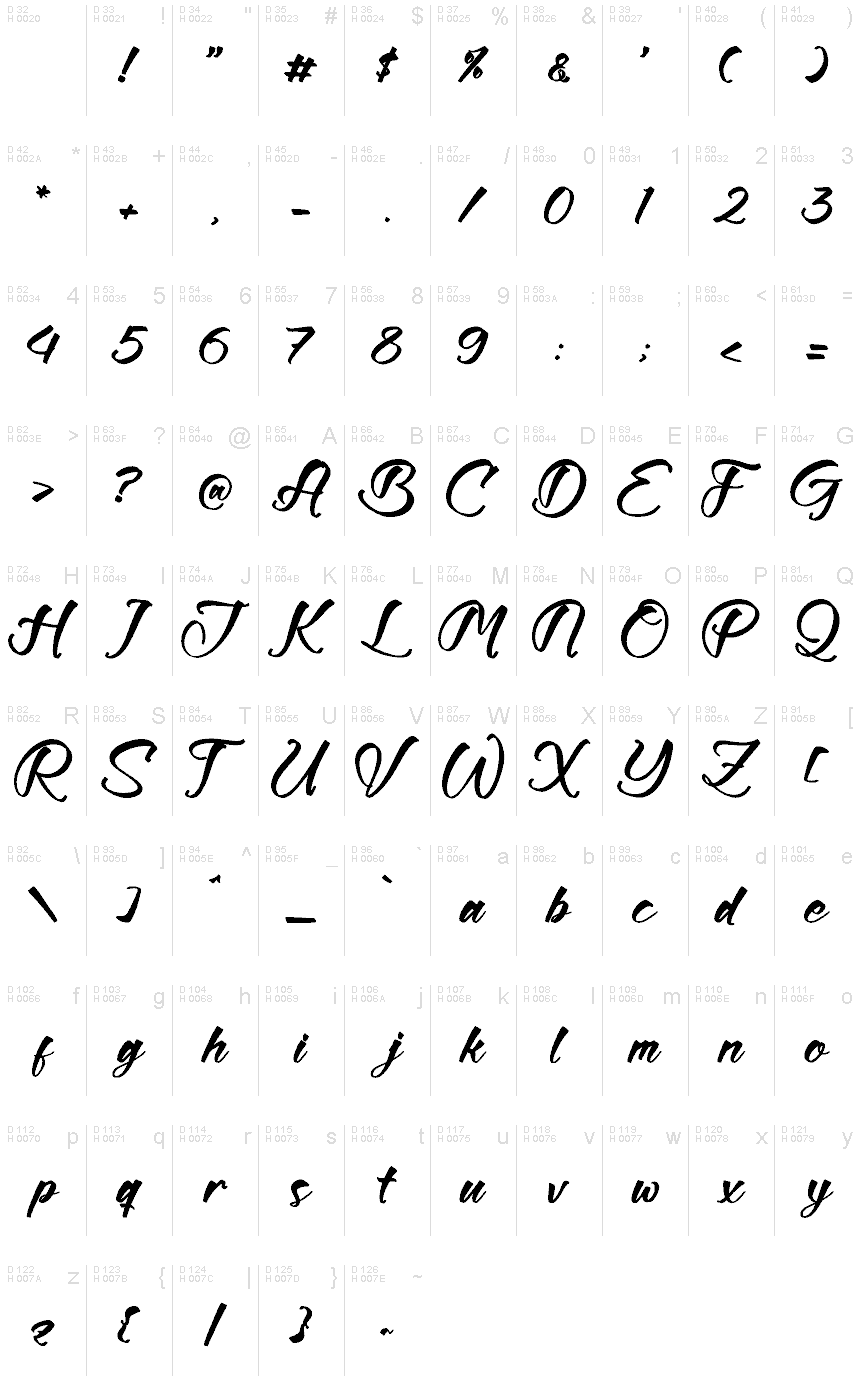
Freytha Brighter
Freytha Brighter font is a magnificent brush font designed by Glorytype. Entirely liquid, elegant, expressive, and ornamental in its own manner, the typeface is perfectly classic yet remains incredibly sophisticated. The letters are rather artistic as well as absolutely stylish for all types of designs.
Pieces directly related to art creation could be built or complemented using this free handwritten font. Titles for books, magazines, newspapers are immediately beautified and turned into testimonials about what could be achieved when such a font is used accurately to its full capacity.